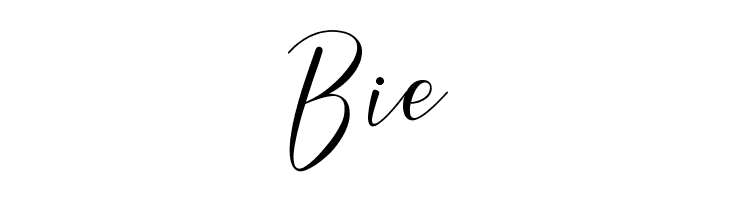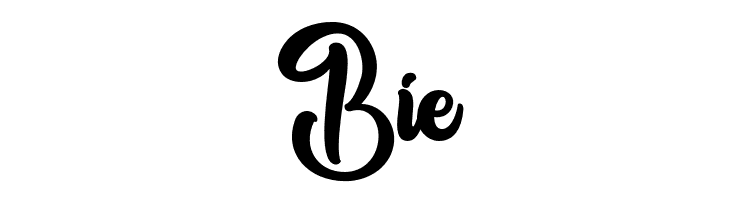
A sophisticated script font with flowing, cursive letterforms.
A bold, flowing script font with decorative loops and curves.
A bold, handwritten-style font with a lively and energetic appearance.
A bold, dynamic script font with a hand-painted, artistic style.
A bold, expressive script font with a hand-painted, artistic style.
A decorative font with leaf motifs integrated into each character, offering a nature-inspired aesthetic.
A playful, hand-drawn font with bold, irregular strokes and quirky shapes.
A bold, angular font with a geometric and industrial style.
A modern, geometric font with artistic curves and bold structure.